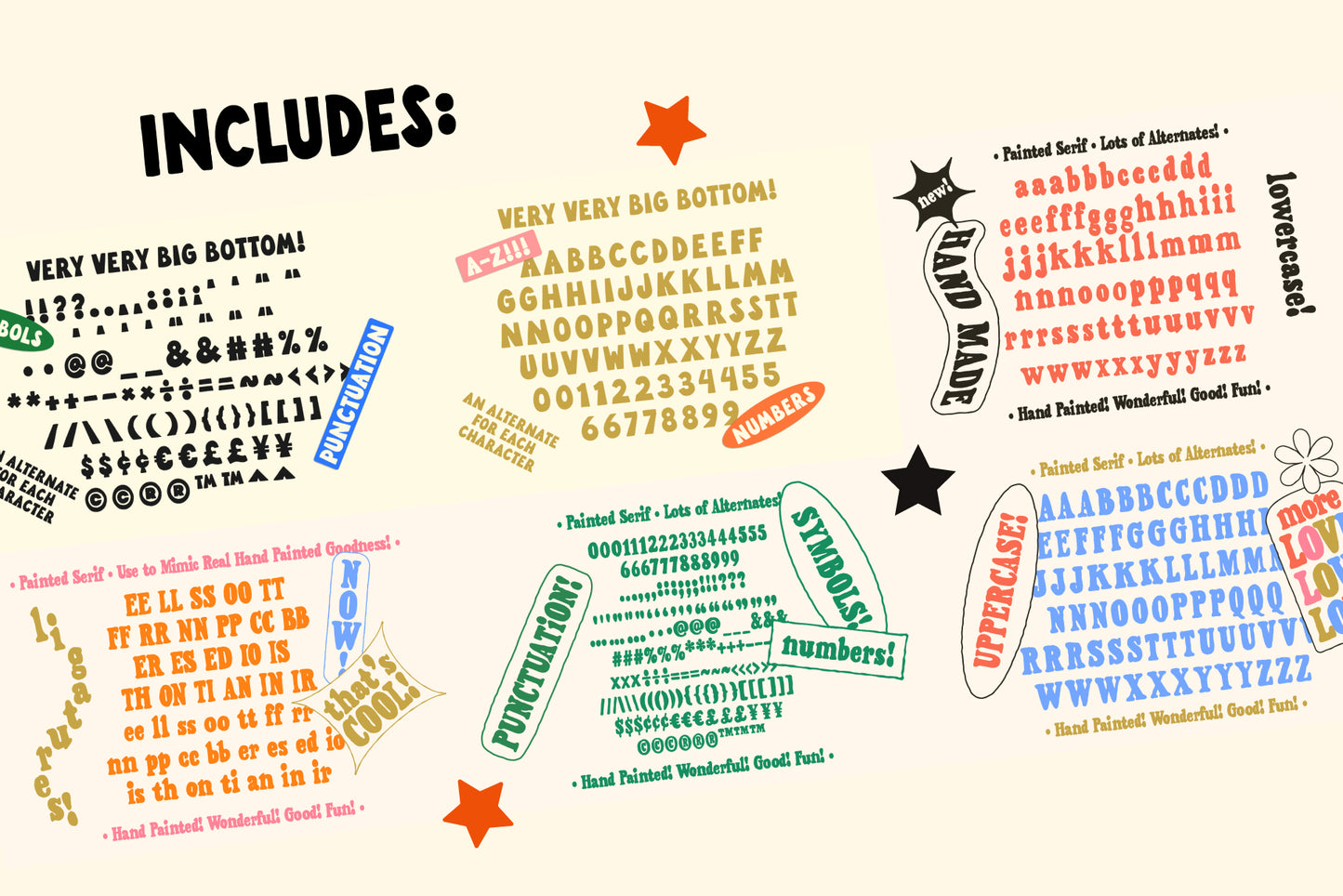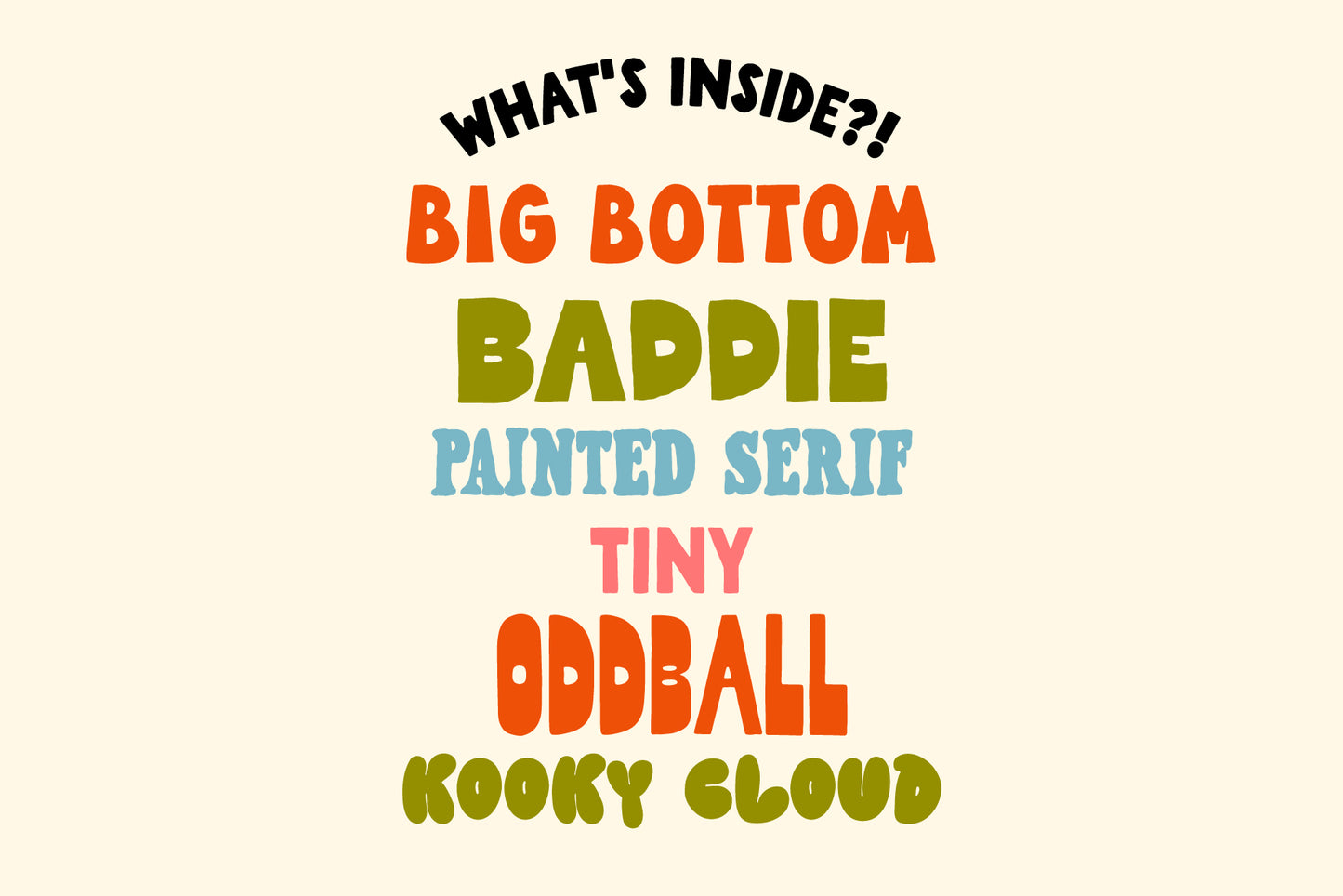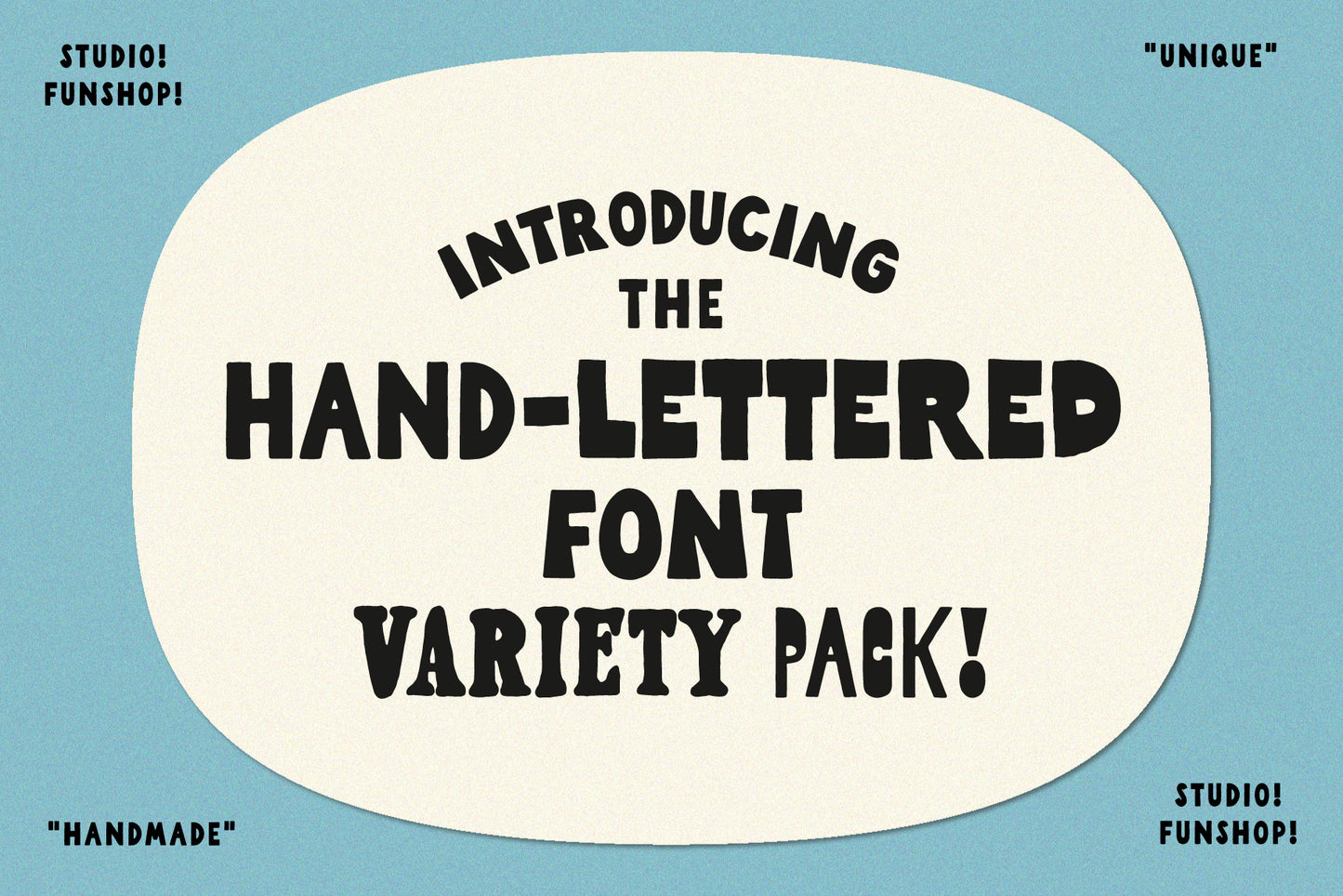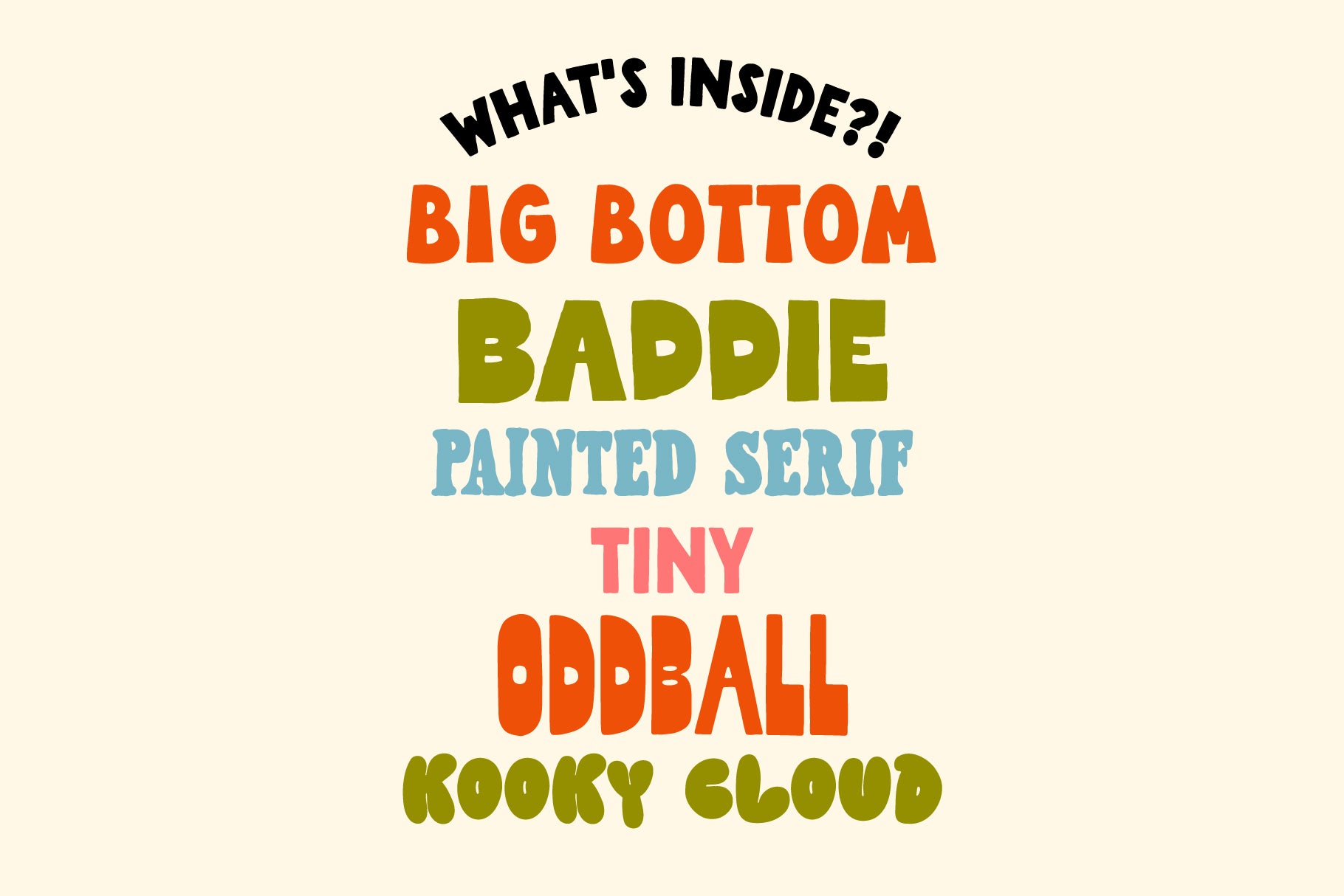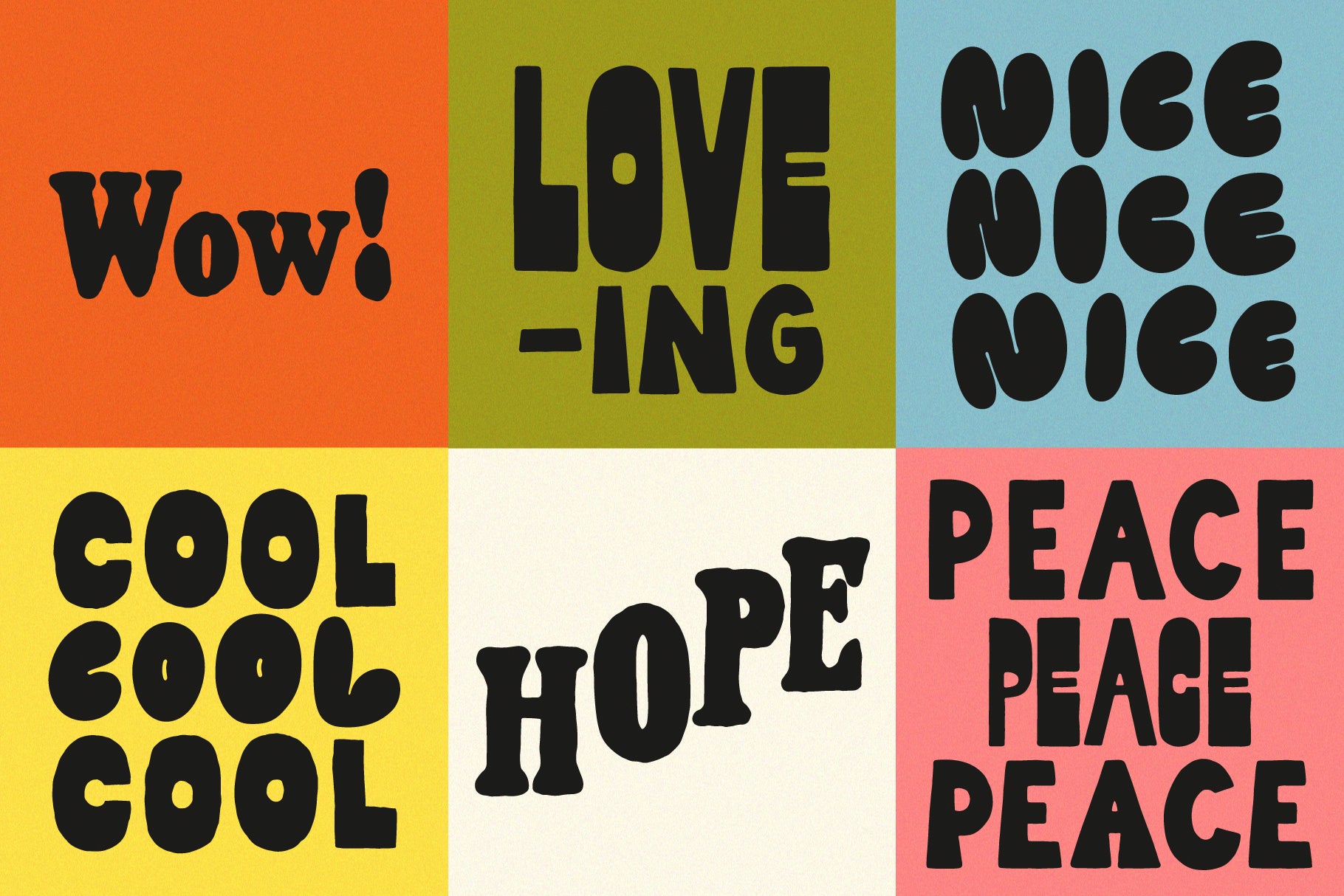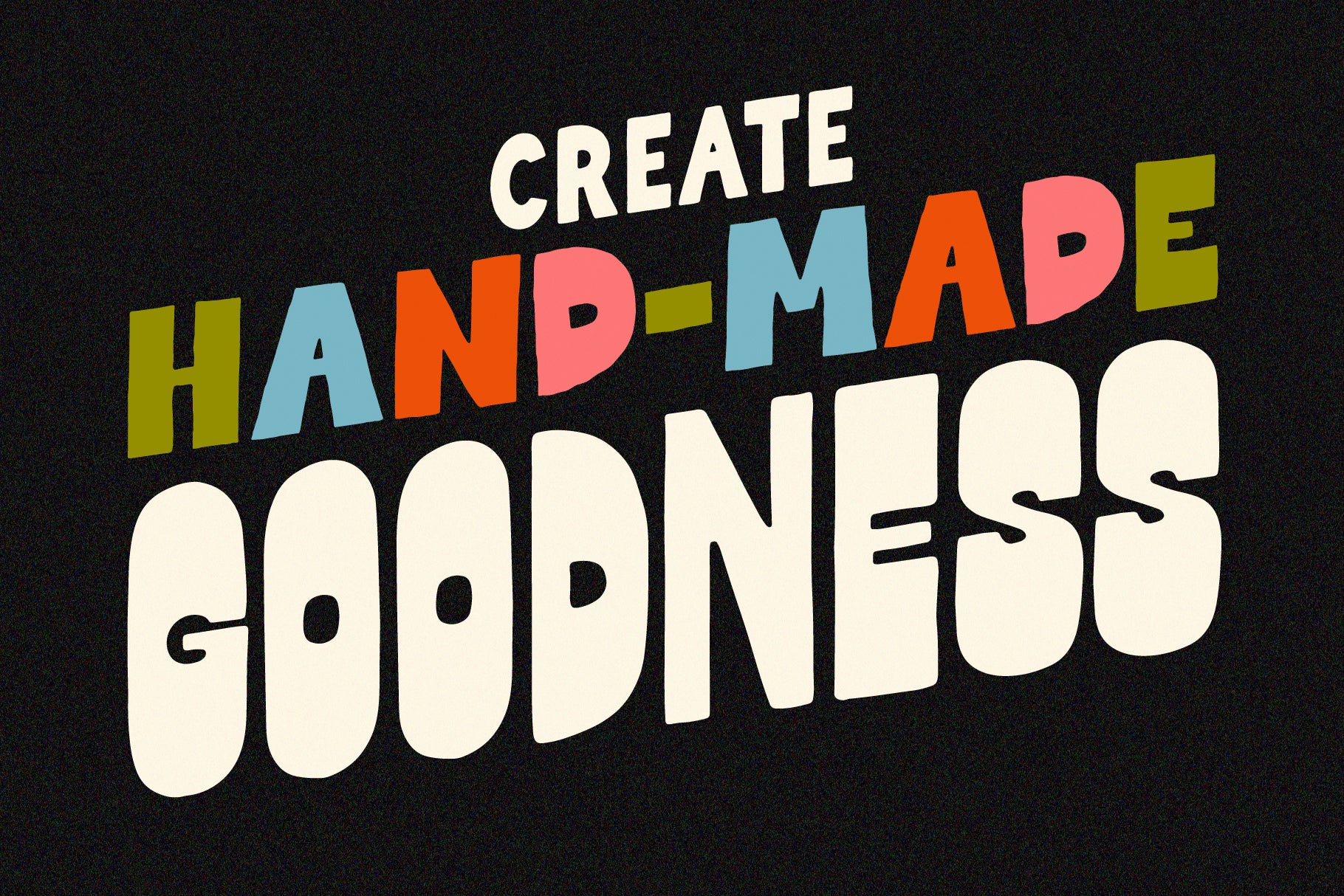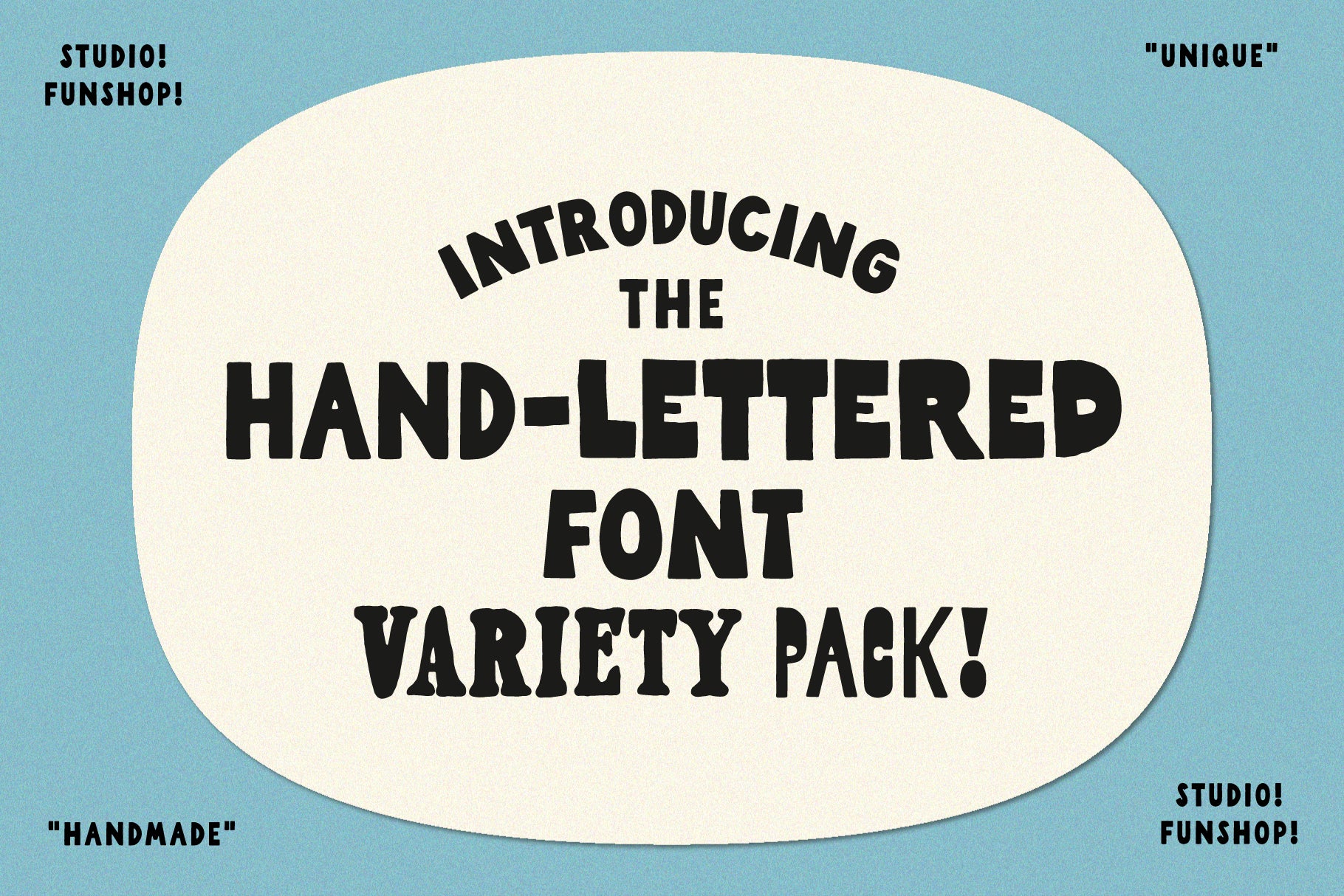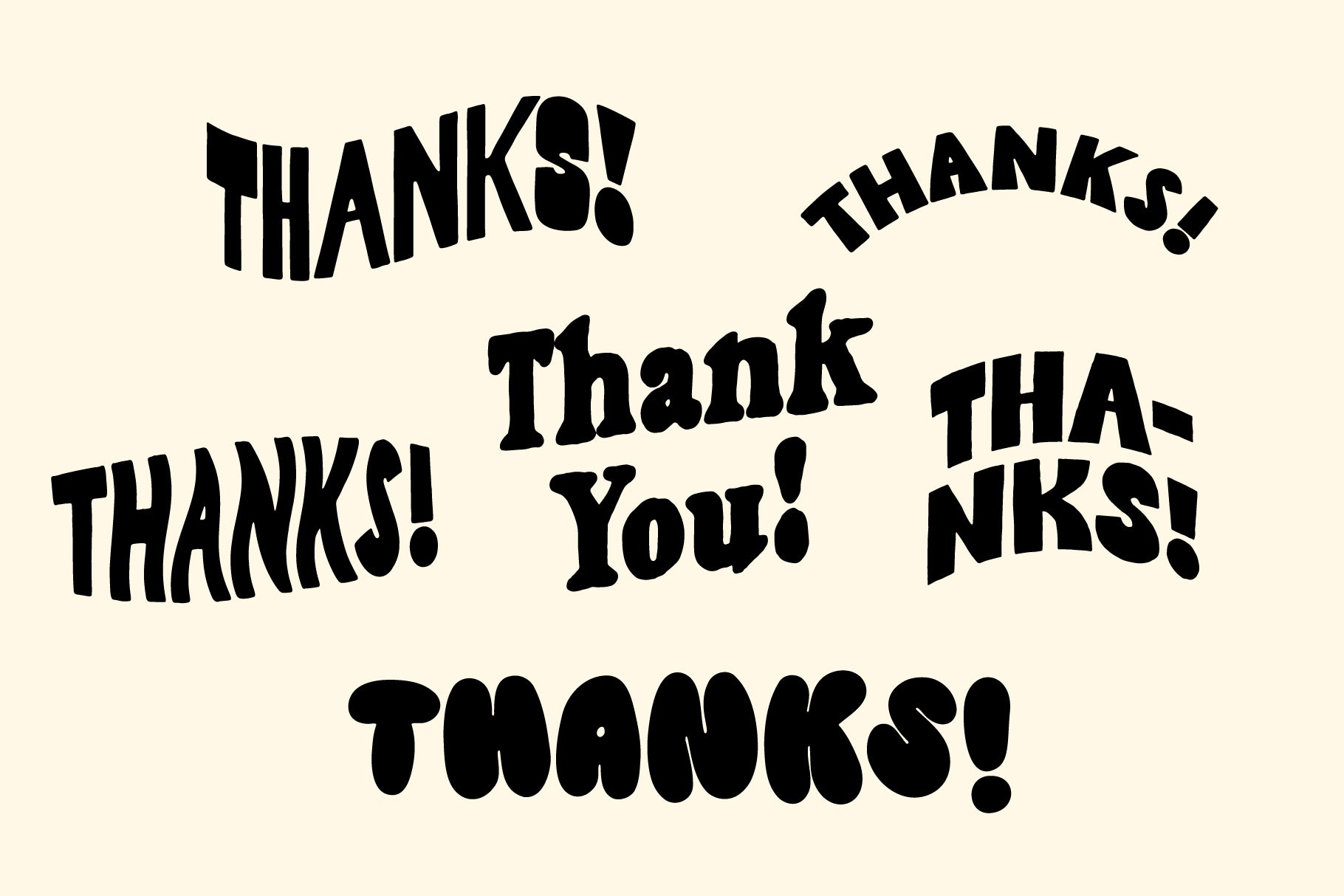
Hand-lettering Kit - Unique Fonts
A diverse collection of hand-lettered fonts to create unique hand-lettered inspired designs!
Each font is hand drawn by me and has lots of yummy handmade imperfections. Please play with these to your heart's content. Mixing and matching are recommended.
Also great for logos, quotes, art, signs, titles, and more! Enjoy!
What's in the kit? A mix of font styles like serif, bubble, retro, modern, reverse contrast, san serif, bold, tall, and condensed. (see slides!)
Fonts Included
- Hello-Baddie
- Hello-KookyCloud
- Hello-Oddball
- Hello-PaintedSerif
- Hello-Very-Tiny
- Hello-Very-BigBottom